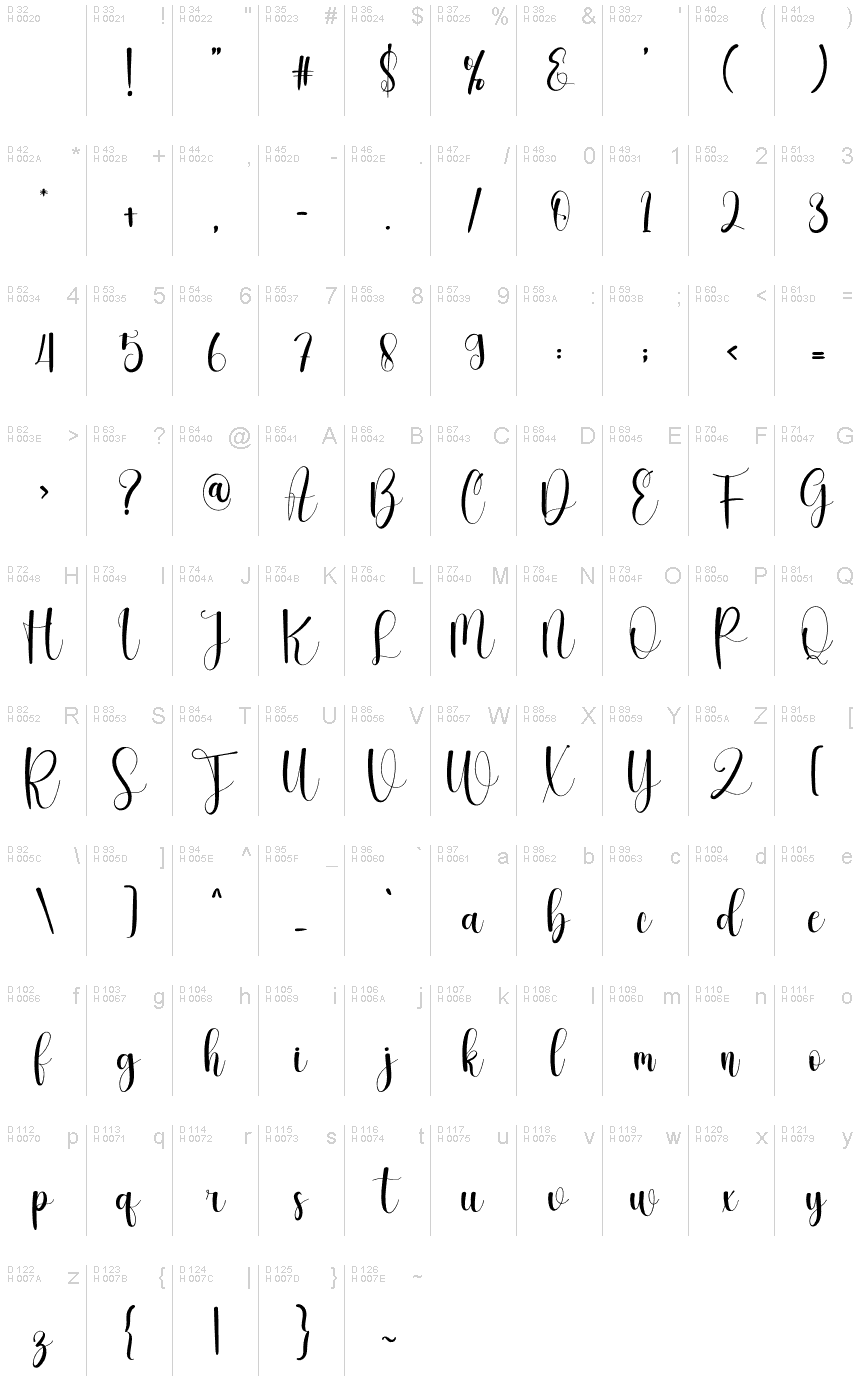
Washington
Washington, a stunning calligraphy font by FreshtypeINK, exudes elegance and sophistication. With its semi-light weight, this font is perfect for projects that require a touch of delicacy and refinement. Whether it's designing wedding invitations, creating luxurious branding materials, or crafting beautiful greeting cards, Washington adds a graceful and artistic flair to any composition. Its flowing lines and intricate details make it an excellent choice for fashion magazines, high-end advertisements, or even poetry books. Let Washington elevate your designs with its timeless beauty and captivating charm.